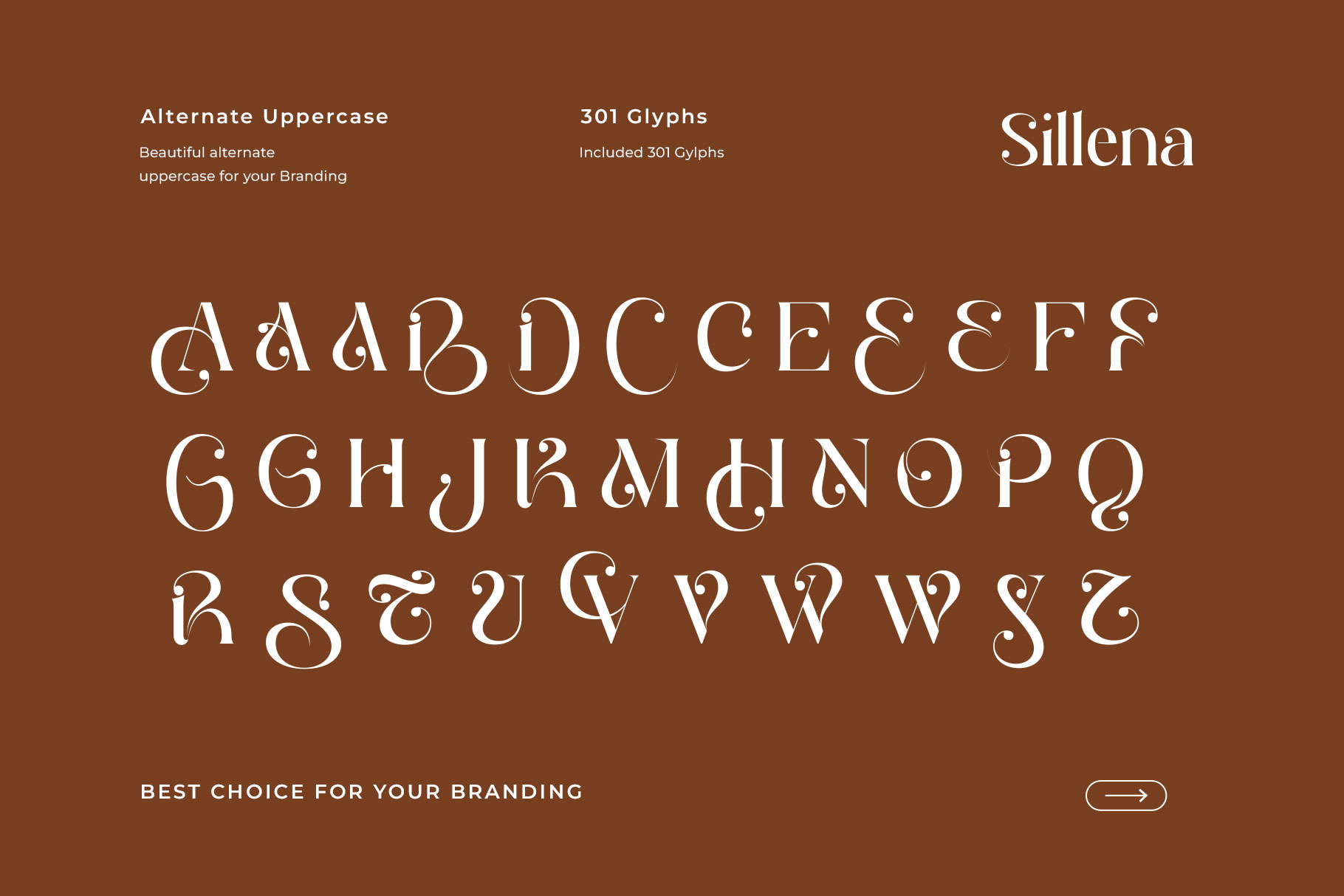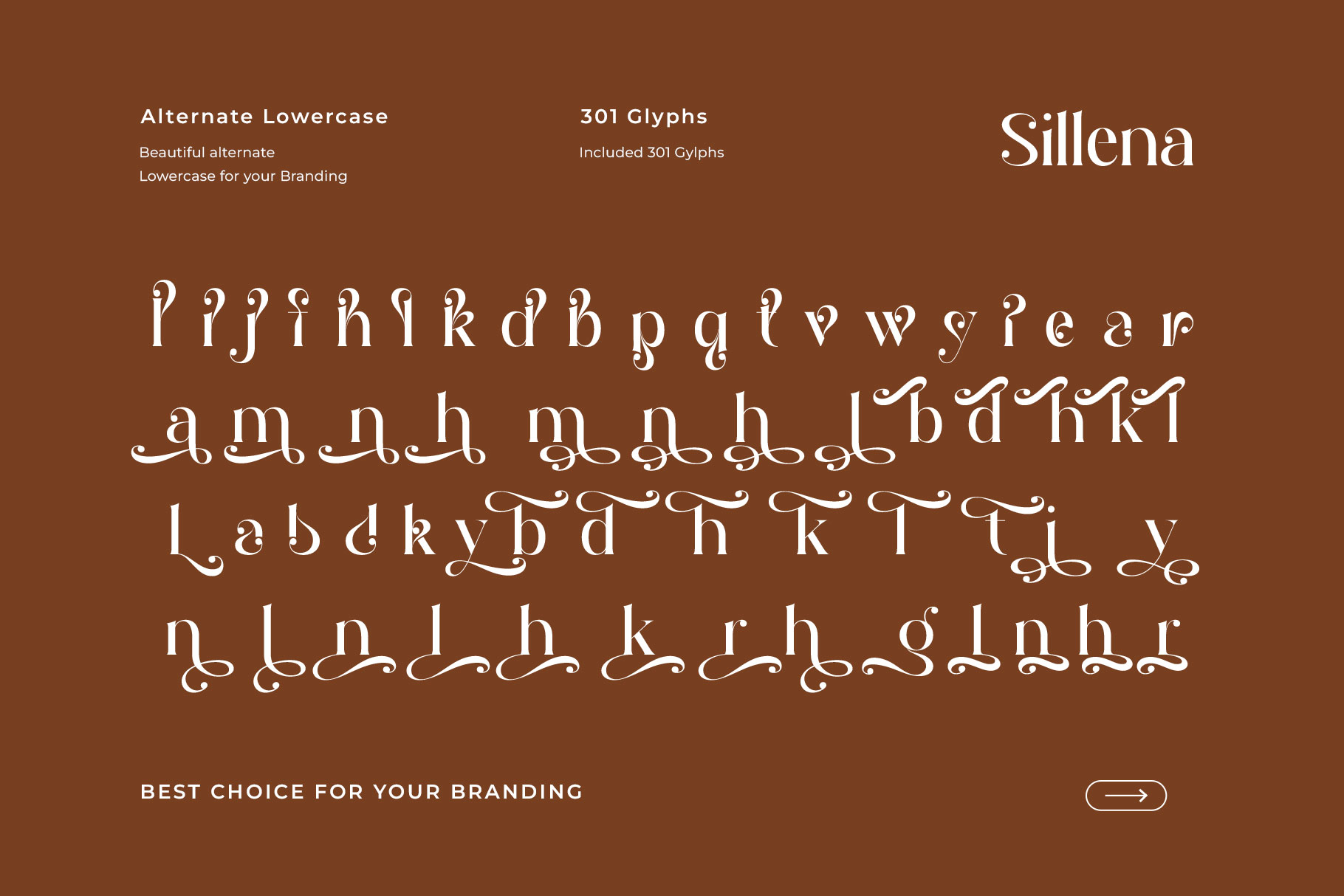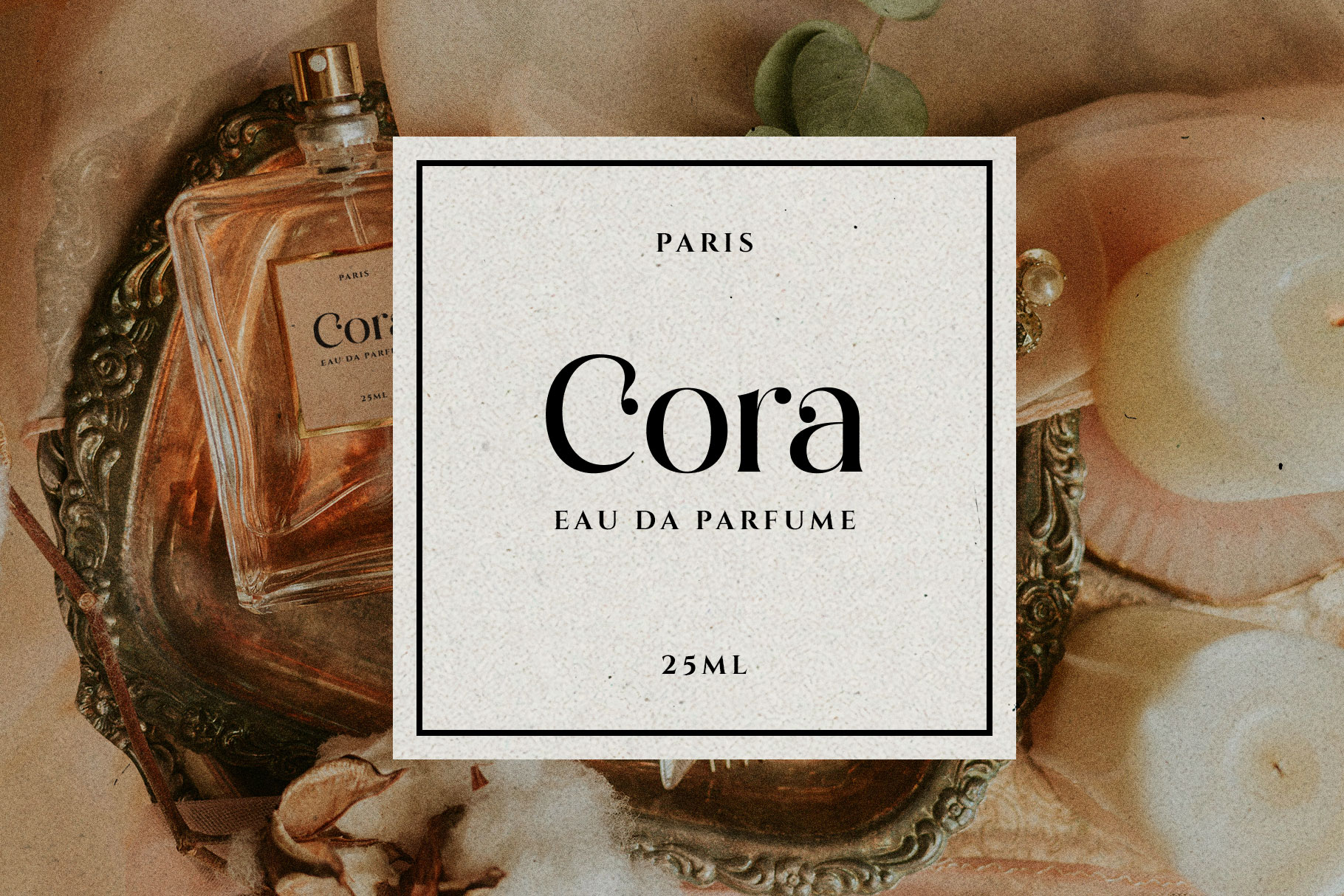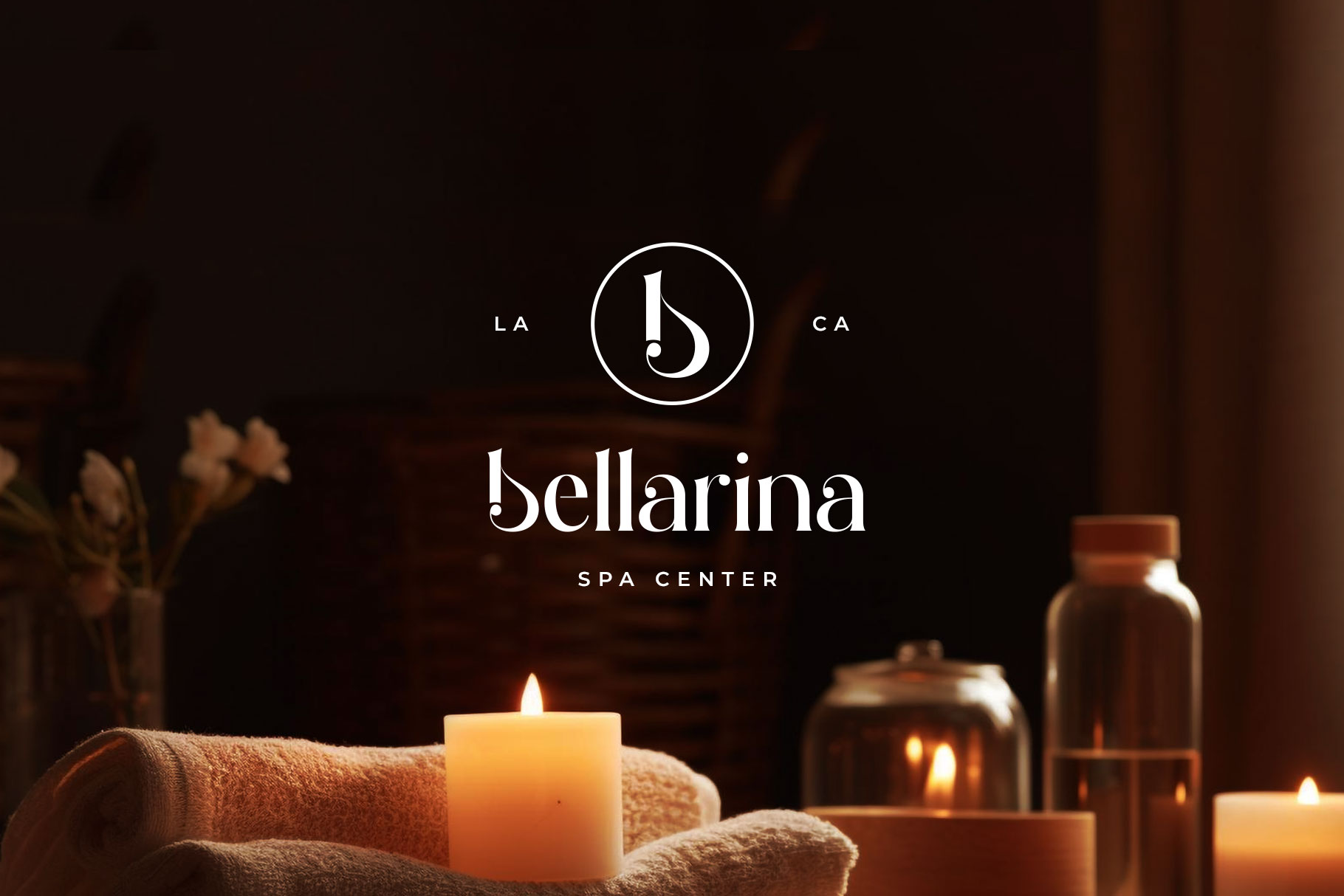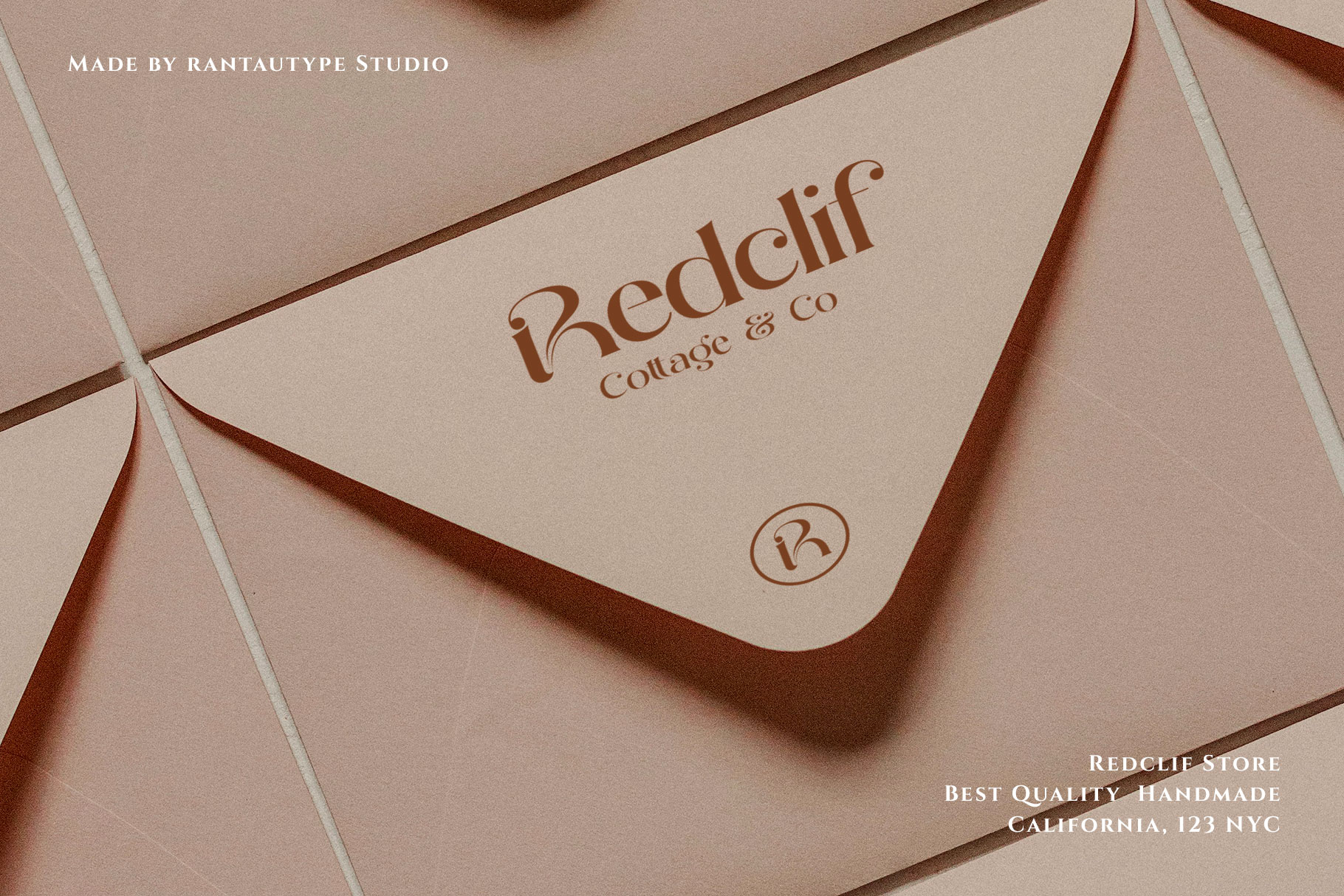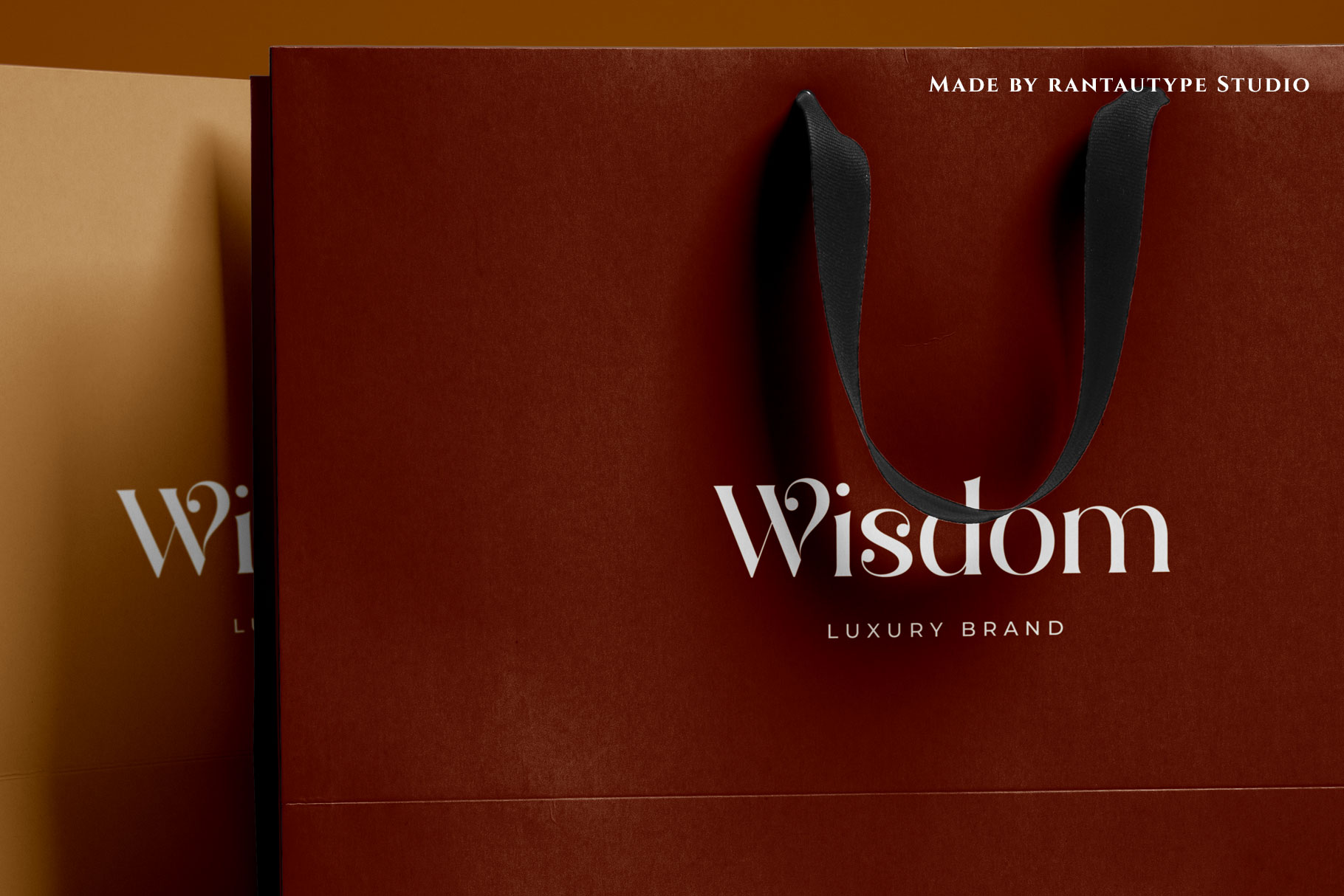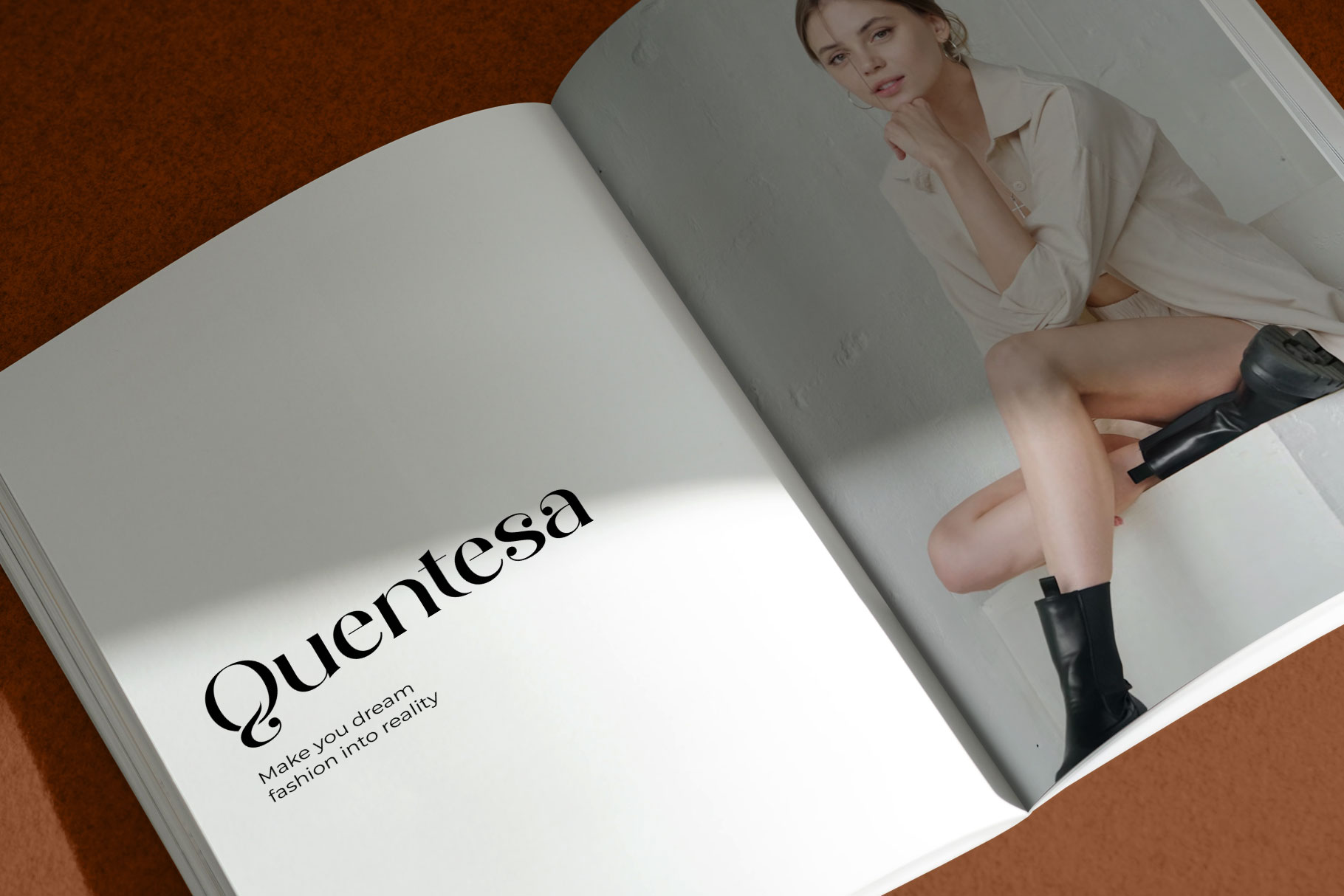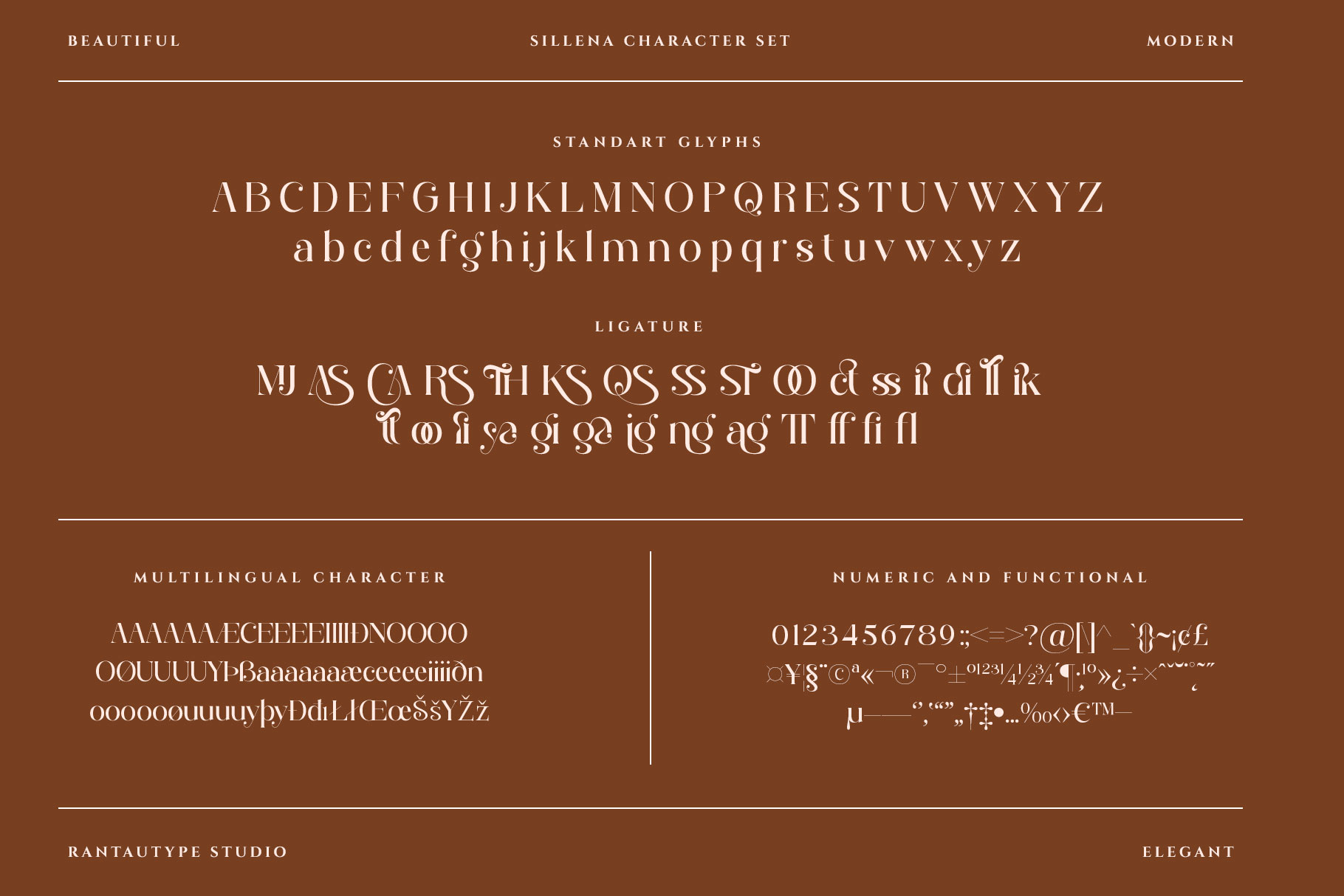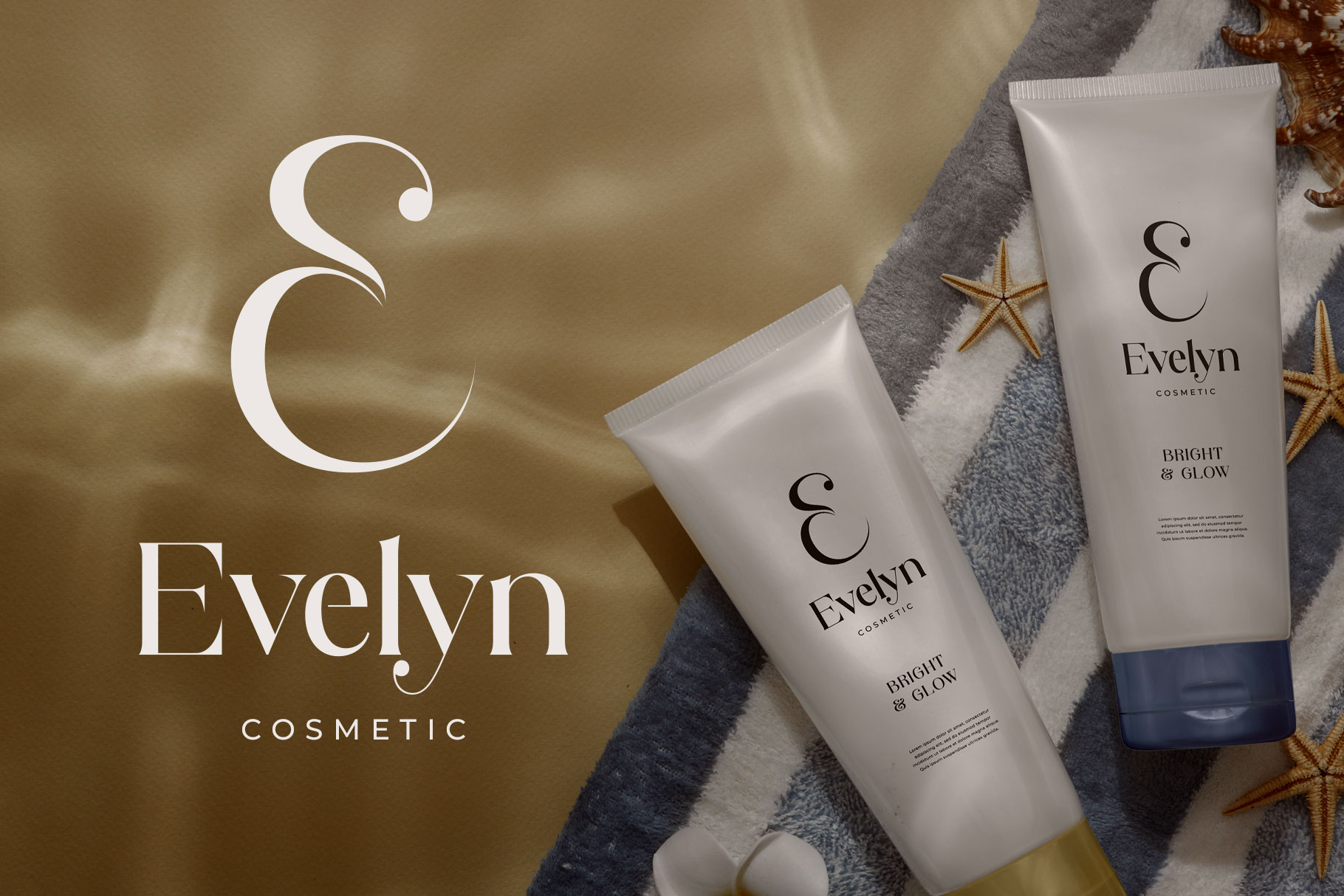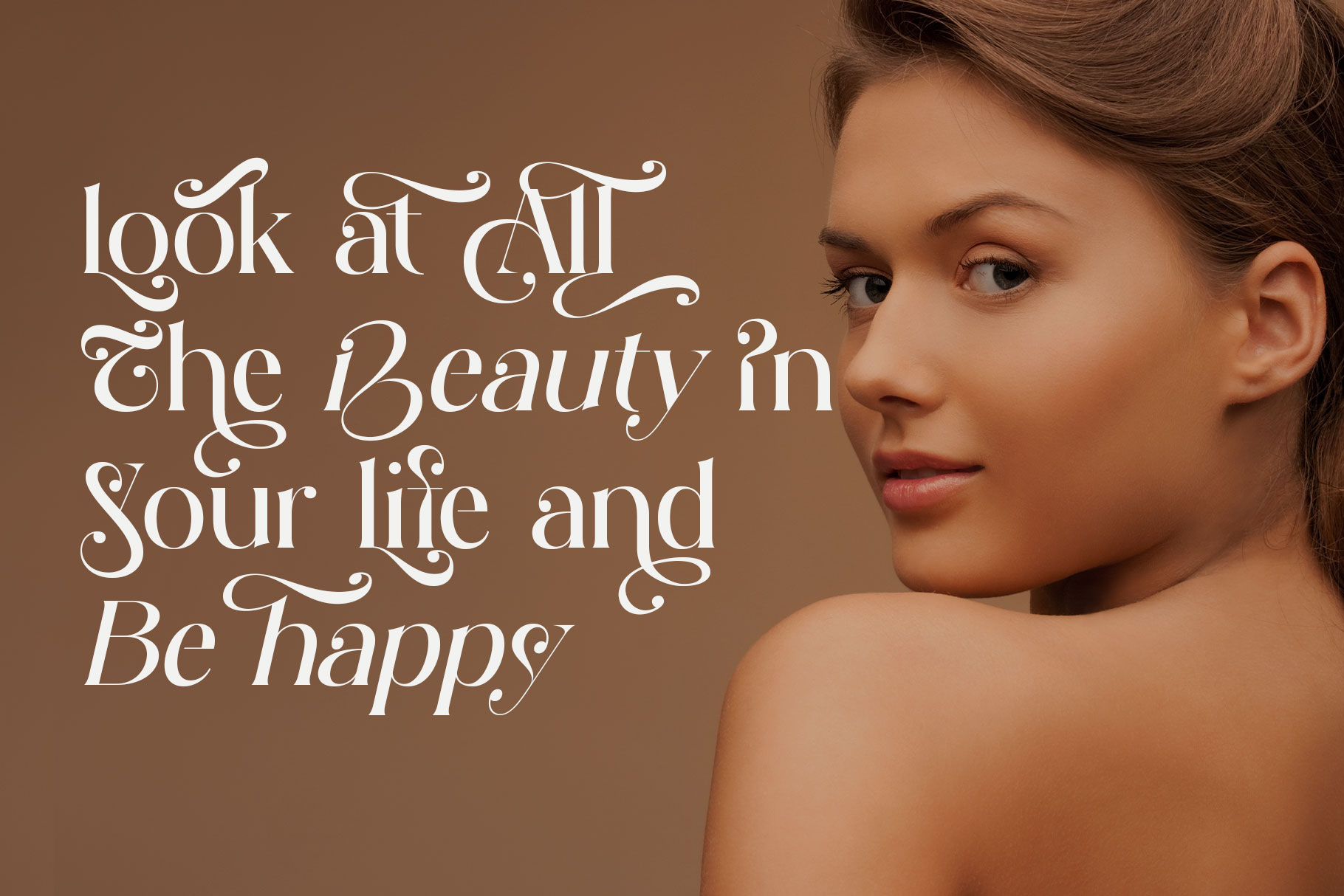
Sillena Modern Serif Font
Sillena is modern serif font with complete dot swasah. We keep this font look modern and feminine that embraces elegance and grace. Its delicate curves and refined details create a sense of sophistication and femininity.
Sillena is a perfectly choice for any creative endeavor, chic, lifestyle design such as logos, advertisements, watermark on photography, stationery, branding project, display and magazine, invitation, corporate brand, product design, label, business project and many other project with elegant touch.